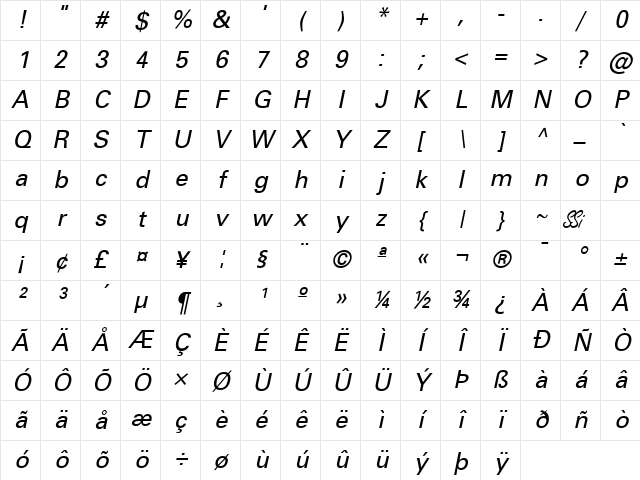
Nova SSi is a composed and adaptable typeface that performs quietly and consistently across a wide range of design contexts. The slanted form adds forward momentum and visual energy.